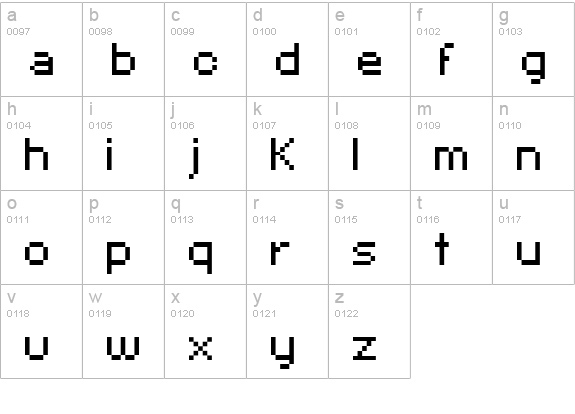
xpaider pixel explosion 02 Font Details
Introducing Xpaider Pixel Explosion 02 Font - a dynamic and eye-catching typeface that exudes a sense of energy and excitement. This bold and modern font is perfect for adding a touch of creativity to your design projects. With its pixelated style and explosive appearance, Xpaider Pixel Explosion 02 Font is sure to make a statement and captivate your audience. The best part? Xpaider Pixel Explosion 02 Font is completely free to download at FontsMarket.com. Yes, you read that right - this striking font is available at no cost, making it a fantastic option for designers looking to add a unique and impactful touch to their work without breaking the bank. Don't miss out on the opportunity to enhance your designs with Xpaider Pixel Explosion 02 Font. Download it today and unleash your creativity with this exciting and versatile typeface.